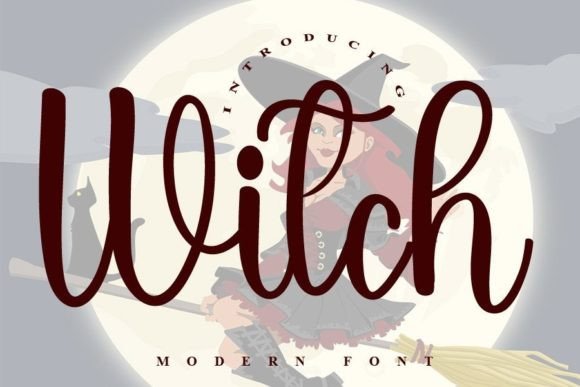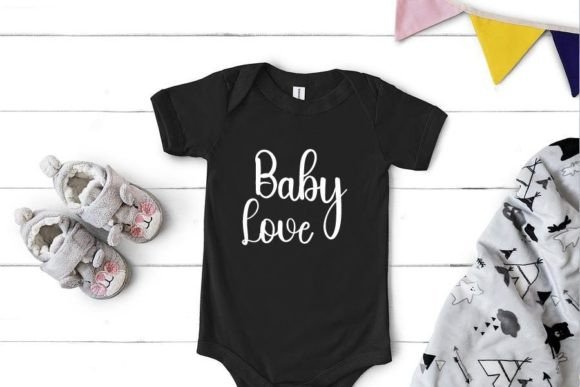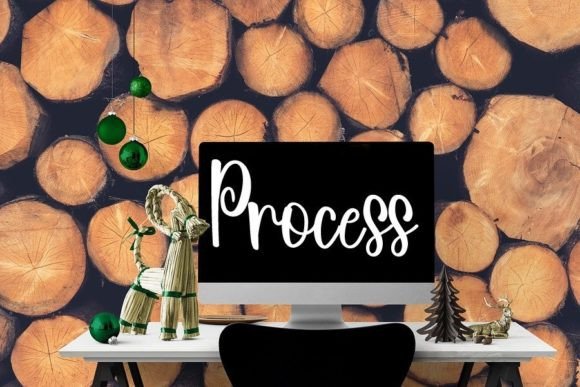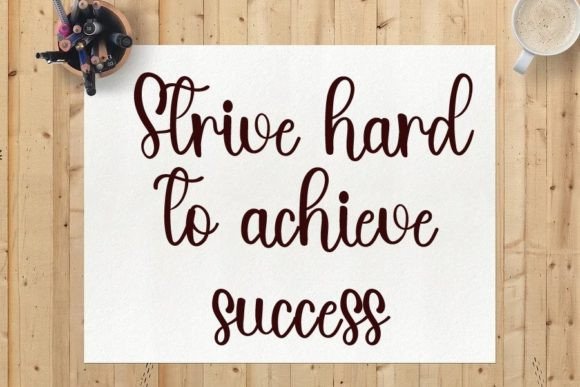
About Witch Font
“Witch” is more than just a font; it’s a fresh and beautiful handwritten typeface meticulously crafted for various design applications. This versatile font is perfect for creating engaging content, including YouTube banners, covers, logos, mockups, wedding invitations, cards, flyers, and crafts. With its simple and unique style, Witch adds a touch of creativity to your projects, contributing to the progress and development of your business.
The simplicity of Witch makes it a flexible choice for a range of design purposes. Whether you’re working on digital designs like YouTube banners and covers or physical materials like wedding invitations and cards, the font’s clean lines bring a contemporary and approachable feel to your projects.
Logos benefit from the fresh and beautiful aesthetics of Witch. The handwritten charm adds a personal touch, making your brand identity more memorable and relatable. The simplicity of the font ensures that your logo maintains a clean and modern appearance.
For mockups and flyers, Witch becomes a design asset that stands out. Its unique style catches the eye, making your promotional materials visually appealing and contributing to a positive and lasting impression on your audience.
In the realm of crafts, where creativity is key, Witch offers a simple yet distinct typography option. Whether you’re working on handmade projects, DIY creations, or any craft-related materials, the font adds a touch of uniqueness to your endeavors.
The font’s versatility extends to wedding invitations, where its handwritten charm brings a warm and personal feel to the special occasion. Its simplicity allows for easy readability while maintaining an elegant and modern look.
In conclusion, Witch is more than just a font; it’s a design tool that enhances various creative projects. Its fresh and beautiful handwritten style, coupled with simplicity and uniqueness, makes it suitable for a wide range of applications. Incorporate Witch into your designs, and witness how it contributes to the progress and development of your business by adding a touch of creativity and individuality to your visual expressions.